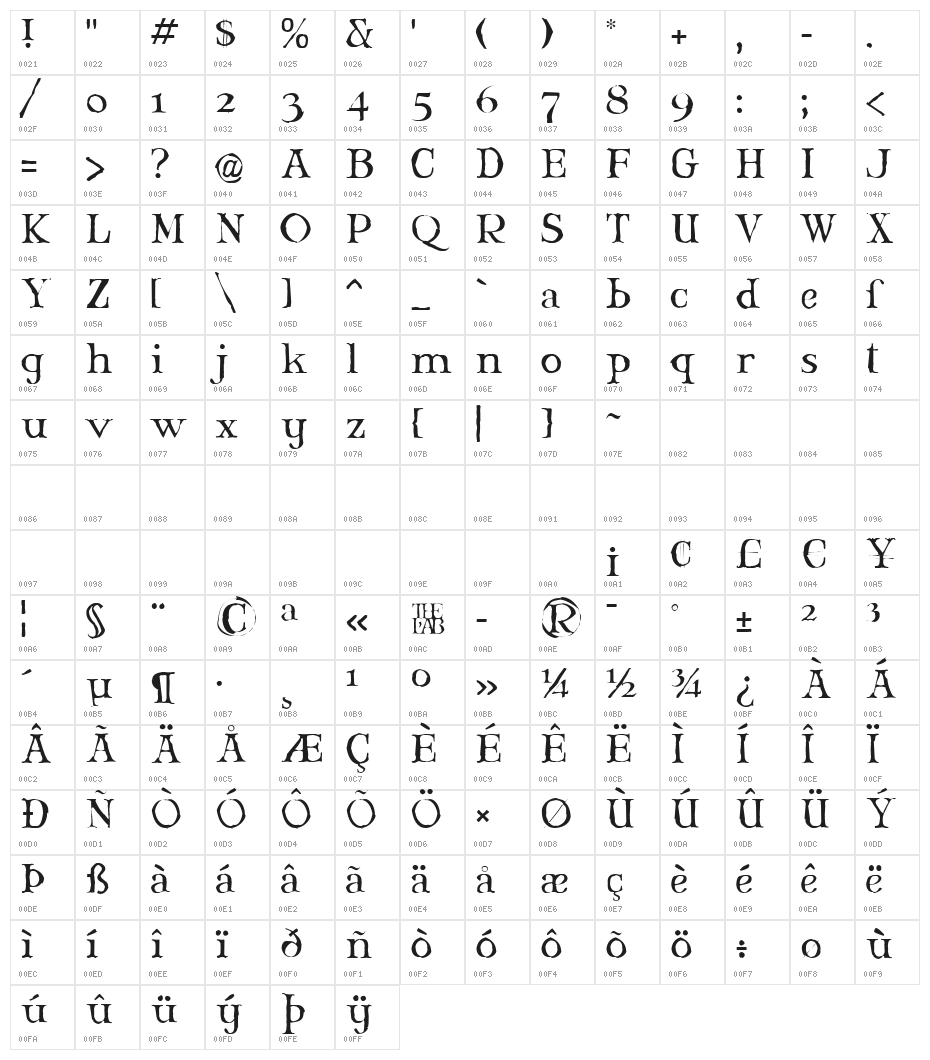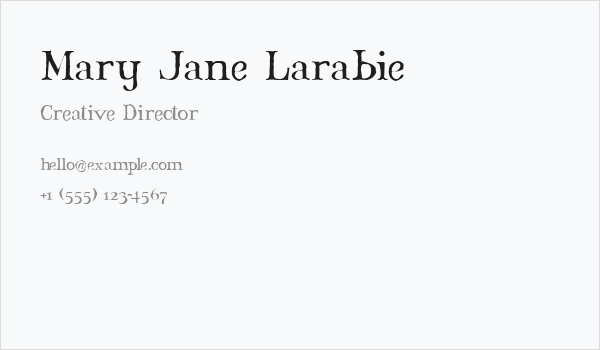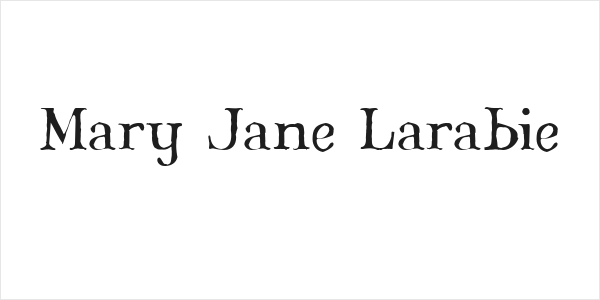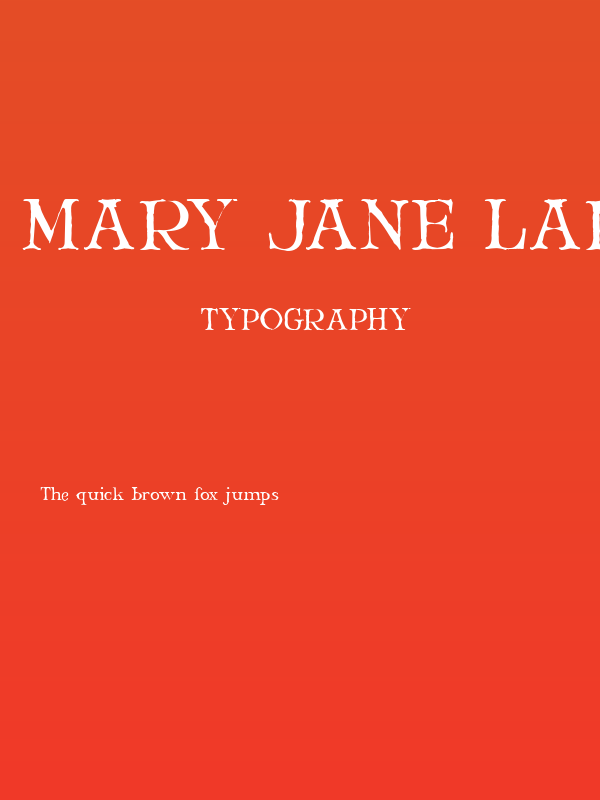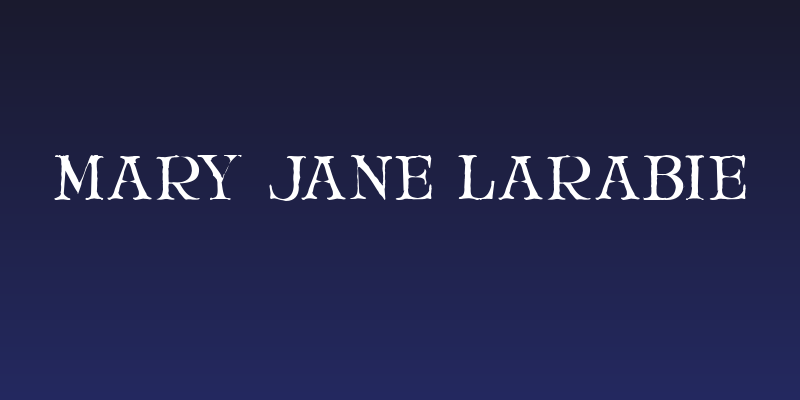
Mary Jane Larabie Font
Mary Jane Larabie Description
This font features a distinctive, hand-drawn appearance with uneven strokes and a slightly rough texture, giving it a rustic and organic feel. The uppercase letters are bold and prominent, while the lowercase letters maintain a consistent style with a touch of whimsy. Numbers and special characters follow the same design ethos, ensuring a cohesive look across all characters. The font's unique style makes it stand out, with each letter exhibiting slight variations that add to its charm. The overall impression is one of creativity and individuality, making it suitable for projects that require a personal touch.
| Proposed Projects | Ideal for creative projects such as invitations, posters, and branding that require a personal and artistic touch. |